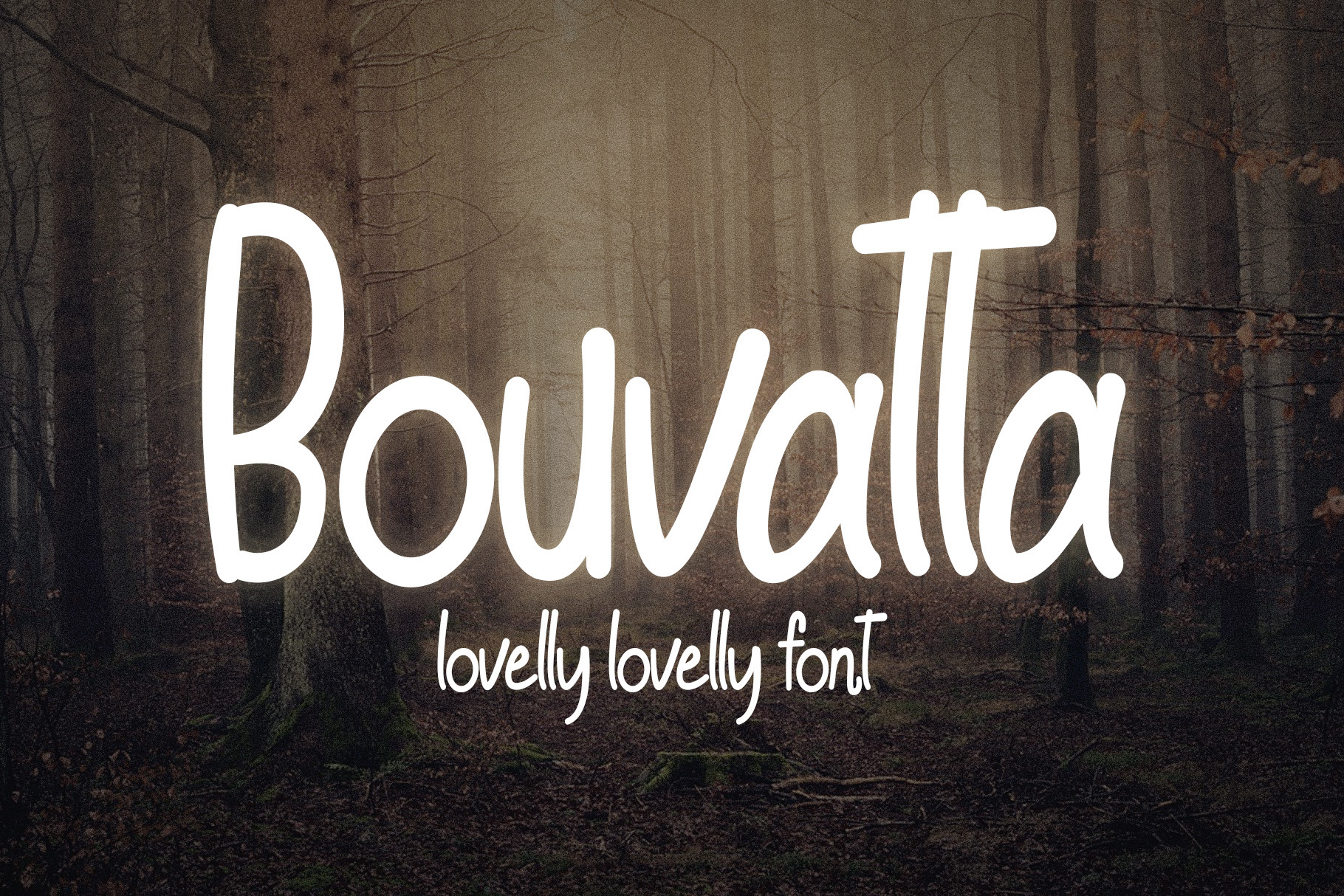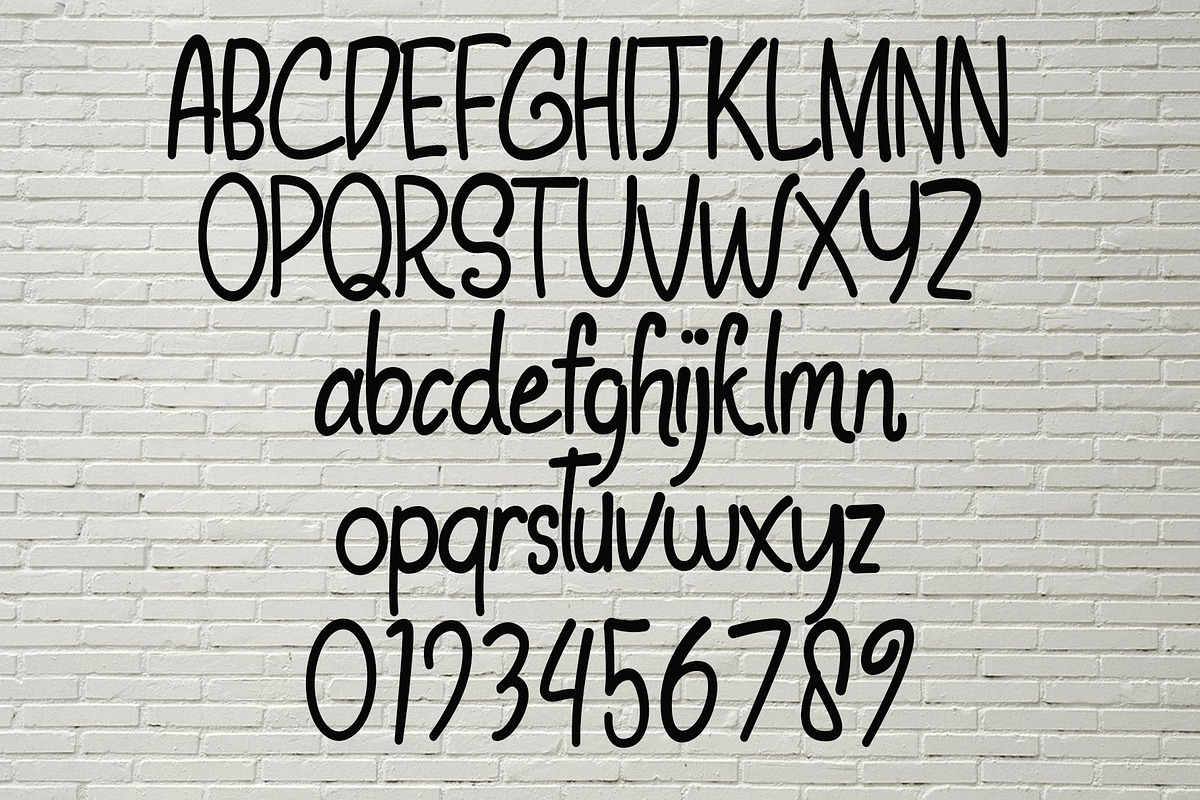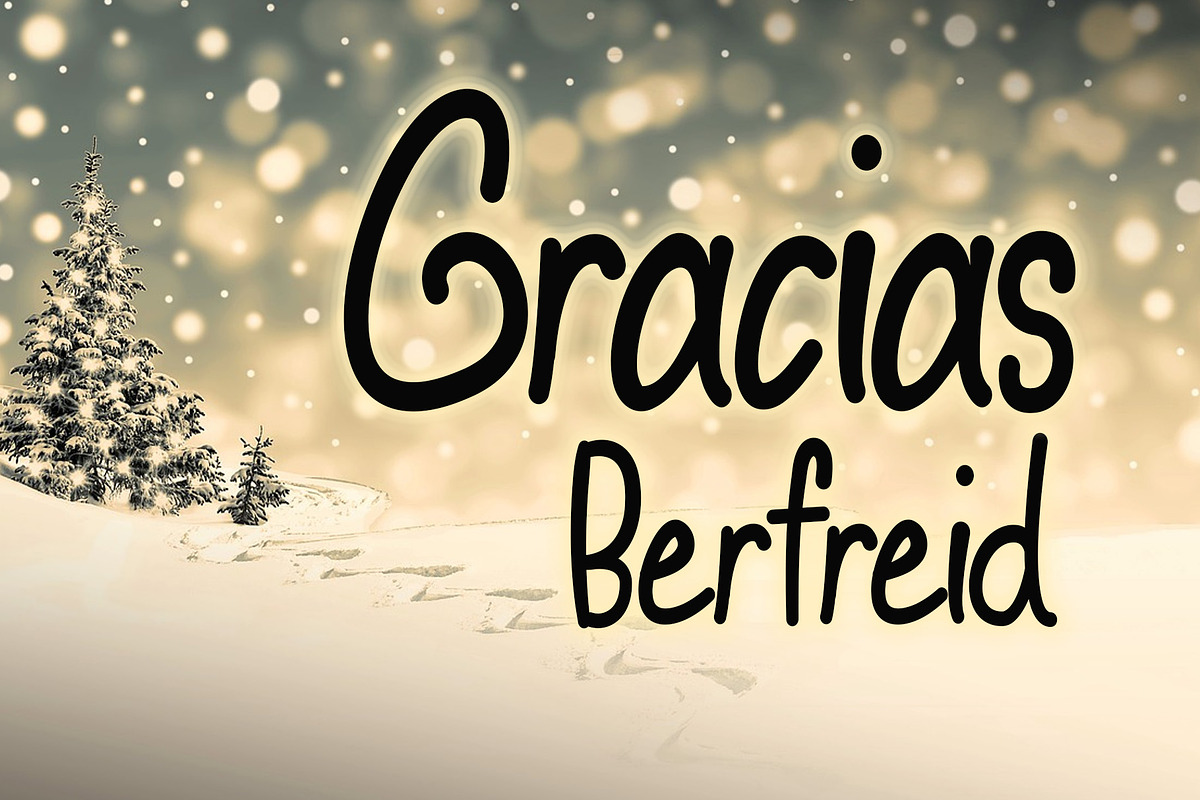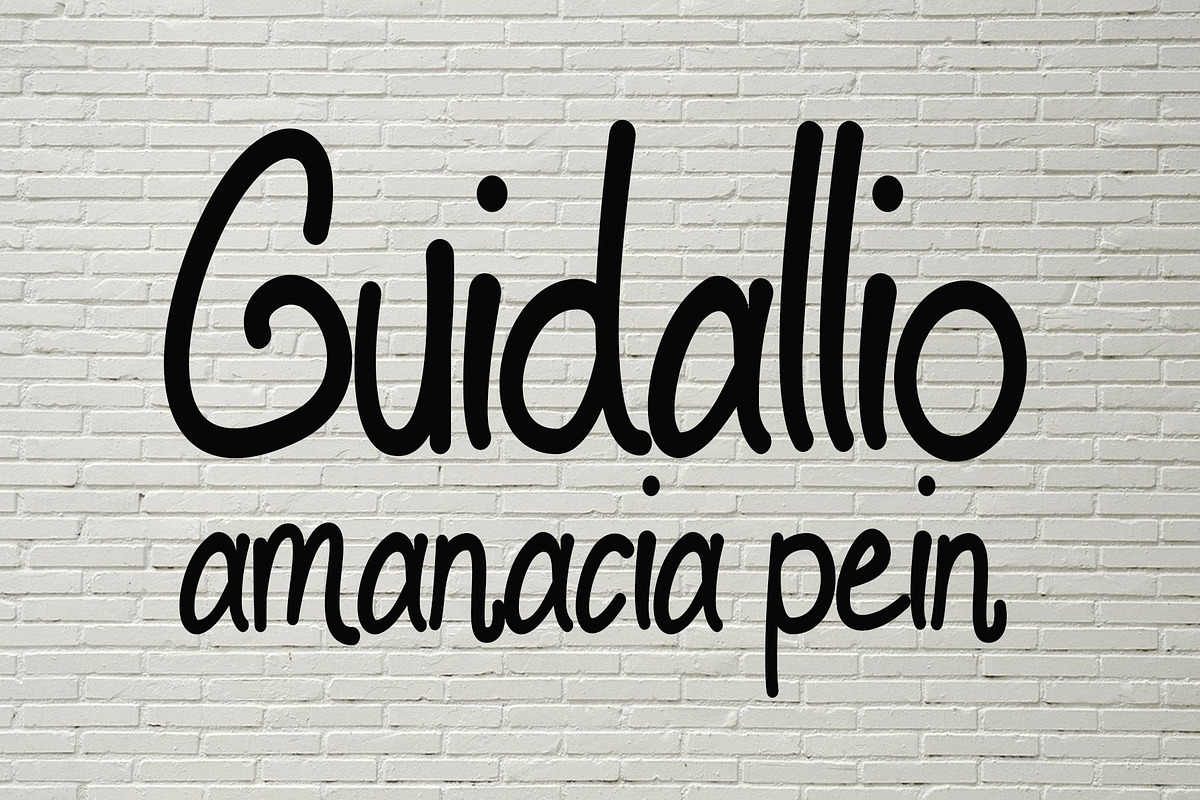
Bouvata - Lovely Font
Add a unique and personal touch to your designs with Bouvata, a handmade display font. Bouvatta's hand-drawn style adds a warm and personal touch to any design, making it perfect for everything from greeting cards to logos and more.
- Handwritten display font
- Includes upper case letters, numerals, and punctuation
- Bring personality and charm to your designs with Bouvatta, a hand-drawn font that's sure to make an impact.